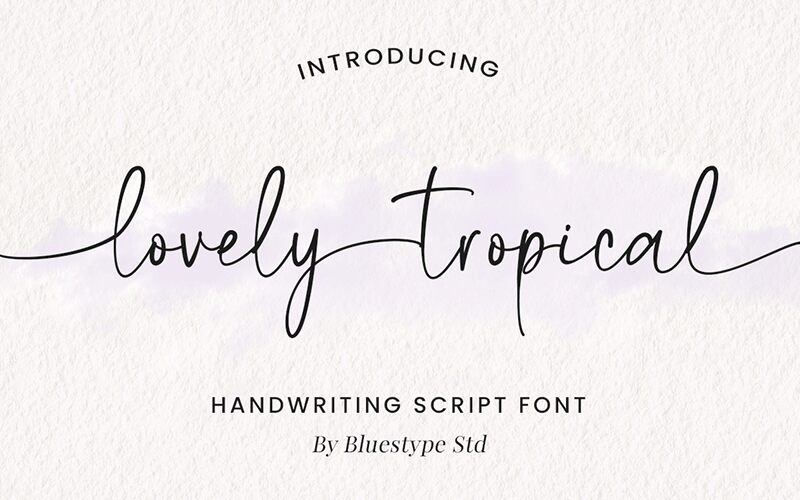
lovely tropical
Lovely Tropical font by Bluestype Studio beautifully balances elegance and casualness in a light handwritten style. It has an organic flow and airy appearance which lets the characters gracefully sit on any background. The modern script style of the font perfectly works as a way to embellish designs that are yet to have a touch of magic.
This free handwritten font is perfect for fancy invitations, elaborate business cards, and gift packages. Use it for branding, printed or online advertising, books, t-shirts, posters, greeting cards, laptop wallpapers, websites…